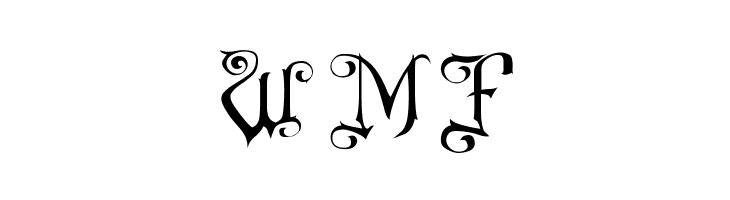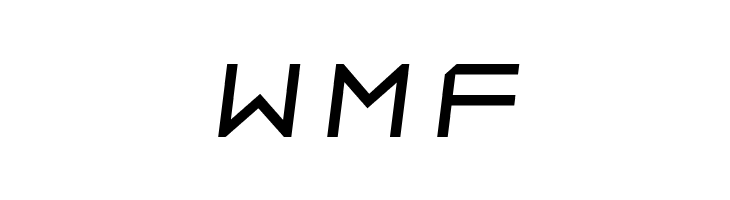
A traditional Blackletter font with ornate, medieval-inspired design.
A decorative Blackletter font with intricate and ornate gothic design.
A bold, hand-drawn font with a sketch-like texture and artistic flair.
A bold, flowing script font with a modern and decorative style.
A lively, expressive script font with bold, flowing strokes.
A modern, elongated font with a sleek and futuristic design.
A sleek, modern font with geometric structure and clean lines.
A bold, modern sans-serif font with clean, geometric lines and balanced spacing.
A geometric, double-line font with a modern and dimensional style.
A sleek, modern typeface with thin, geometric lines and a minimalist design.
A bold, geometric sans-serif font with a modern outline style.
A bold, geometric sans-serif font with a modern and impactful style.
A sleek, ultralight font with geometric lines and a modern aesthetic.
A bold, geometric font with sharp angles and a modern industrial style.
A playful, casual handwritten font with irregular strokes and a friendly feel.
A futuristic, tech-inspired font with dotted accents and bold geometric shapes.
An ornate and decorative font with elaborate swirls and flourishes.
A modern, angular font with a futuristic and dynamic design.
A geometric, futuristic font with straight lines and angular corners.
A bold, angular font with sharp serifs and a dynamic style.
A bold, distressed font with a rugged, vintage aesthetic.
A bold, slab serif font with a rugged, vintage style.
A bold, hand-drawn font with an expressive and artistic style.
A bold, textured font with a distressed, grunge style.
A playful, hand-drawn font with bold outlines and textured patterns.
A bold, handwritten font with rounded strokes and a playful, approachable style.
( Fonts by AV Type - Aldo Vesely - Personal-use only. For commercial use please contact owner. )
A bold, handwritten font with a playful and casual style.
A playful, handwritten font with tall, narrow letters and a clean, modern look.
A playful, casual handwritten font with smooth, flowing lines and uniform letter height.